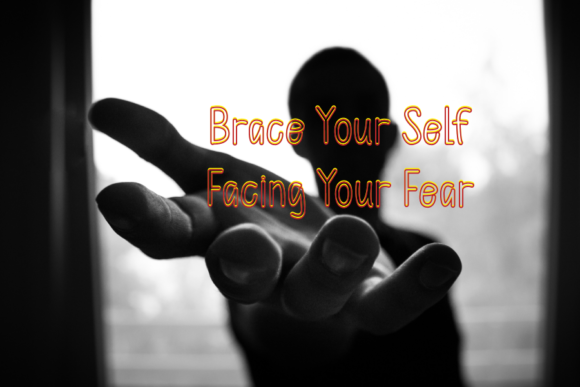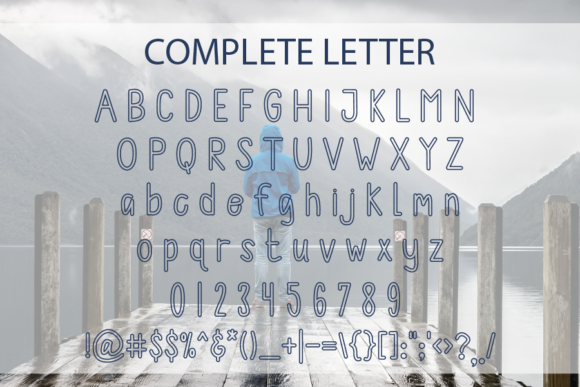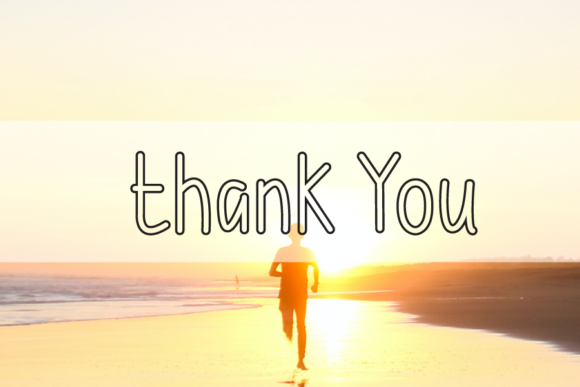
Introduction to Great Bro Font
Have you ever been working on a creative project, pouring your heart and soul into every detail, only to feel like something’s missing? You’ve got the perfect concept, the ideal color palette, but the text just doesn’t seem to pop? That’s where the Great Bro Font comes in – a simple yet effective design resource that can elevate your work to the next level.
As a designer, you know how crucial it is to have high-quality fonts at your disposal. The Great Bro Font is a free download that offers a transparent background, making it perfect for overlaying on your designs. With its clean and modern aesthetic, this font is sure to make your creative ideas stand out.
Key Features of Great Bro Font
- High-quality design resource suitable for various creative projects, including posters, flyers, and brochures.
- Free download with transparent background, allowing for seamless integration into designs.
- Features a unique, modern design with clean lines and a minimalist aesthetic.
- Comes in a single font style with multiple weights, including light, regular, and bold, to cater to different design needs.
- Perfect for designers and artists looking for a free, high-quality design resource to enhance their creative projects.
Honest Review: Great Bro Font
I recently came across the Great Bro Font, a free download that’s been making waves in the design community. As a designer, I was excited to see how it would stack up as a design resource.
- High-quality glyphs: The Great Bro Font features crisp, clear glyphs that make it perfect for any creative project.
- Transparent background: This is a huge plus for designers who need to create graphics with a transparent background.
- Unique style: The Great Bro Font has a distinctive style that’s sure to add some personality to your designs.
- Limited font sizes: While the Great Bro Font looks great at larger sizes, it can appear a bit rough at smaller sizes.
- Lack of language support: Unfortunately, the Great Bro Font only supports a limited number of languages.
Overall, I was impressed with the Great Bro Font. While it may not be perfect, it’s a high-quality design resource that’s definitely worth checking out. Whether you’re working on a creative project or just need a free font, the Great Bro Font is definitely worth considering.
The Great Bro Font is a high-quality design resource perfect for any creative project. This free download is ideal for designers and non-designers alike, offering a unique and eye-catching aesthetic.
For the best results, use the Great Bro Font on a transparent background to give your designs a clean and modern look.
The Great Bro Font is perfect for a variety of design projects, including:
- Posters
Montserrat is a geometric sans-serif font that’s perfect for high-quality design projects. It’s available for free download and features a transparent background, making it easy to integrate into any design. This font is ideal for designing urban landscapes, cityscapes, and other creative projects that require a modern and edgy feel. When to use: Montserrat is perfect for designing brochures, posters, and other marketing materials that require a bold and eye-catching aesthetic.
Comparison to Great Bro Font: Montserrat has a more geometric and modern feel compared to Great Bro Font, which is more suited for casual and informal designs.
Playfair Display is a luxurious serif font that’s perfect for high-end design projects. It’s available for free download and features a transparent background, making it easy to integrate into any design. This font is ideal for designing luxury brands, high-end products, and other creative projects that require a sophisticated and elegant feel. When to use: Playfair Display is perfect for designing business cards, invitations, and other marketing materials that require a high-end and exclusive aesthetic.